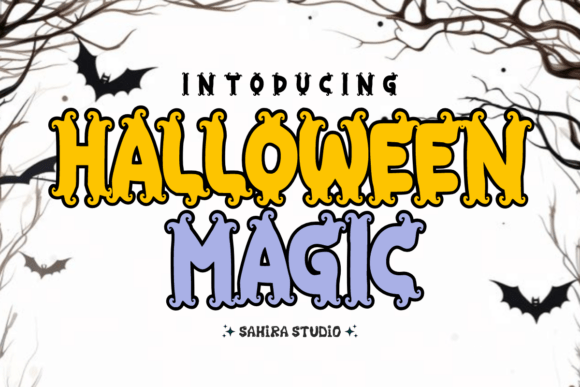
Unleash the Spooky Charm with Halloween Magic Font
Are you ready to add a dash of magic to your designs this Halloween season? Look no further than the Halloween Magic Font, a unique and modern cartoon font that is sure to cast a spell on your audience. In this article, we’ll dive into the features and benefits of this exciting font, and explore the endless possibilities for designers and crafters.
What is Halloween Magic Font?
Halloween Magic is a one-of-a-kind, all-uppercase letter font that embodies the spirit of Halloween. Each character is carefully crafted to be spooky, unique, and adorable, making it instantly recognizable. The font’s playful and whimsical design makes it perfect for a wide range of creative projects, from Halloween-themed crafts to animations and children’s coloring books.
Key Features of Halloween Magic Font
- Unique and Modern Design: Halloween Magic Font boasts a fresh and contemporary design that will set your creations apart from the rest.
- All-Uppercase Letters: The font consists of only uppercase letters, giving it a bold and eye-catching appearance.
- Spooky yet Cute: Each character is carefully designed to be both spooky and adorable, making it perfect for Halloween-themed designs.
- Versatile: The font can be used for a wide range of projects, from craft designs to animations and digital products.
Halloween Magic Font is a versatile font that can be used in various creative projects, including:
- Halloween Craft Designs: Add a touch of magic to your Halloween crafts, such as decorations, cards, and gift tags.
- Sublimated T-Shirts and Apparel: Create eye-catching Halloween-themed t-shirts, hoodies, and other apparel using this font.
- Mugs and Drinkware: Design spooky yet fun mugs, tumblers, and other drinkware that will make your audience smile.
- Tote Bags and Fabric Products: Add a Halloween touch to tote bags, scarves, and other fabric products.
- Animations and Videos: Use Halloween Magic Font to create spooky yet fun animations and videos for Halloween-themed content.
- Comic Titles and Children’s Books: Add a playful touch to comic titles, children’s coloring books, and other digital products.
Why Choose Halloween Magic Font?
With Halloween Magic Font, you can:
- Stand Out from the Crowd: The font’s unique design ensures that your creations will stand out from the rest.
- Enhance Your Creations: Halloween Magic Font has the potential to elevate any creation, making it a valuable addition to your font library.
Get ready to unleash the spooky charm of Halloween Magic Font in your designs and crafts. With its unique and modern design, versatility, and ease of use, this font is sure to become a favorite among designers and crafters. Whether you’re creating Halloween-themed crafts, animations, or digital products, Halloween Magic Font is the perfect choice. So, let your imagination run wild and cast a spell on your audience with this enchanting font!